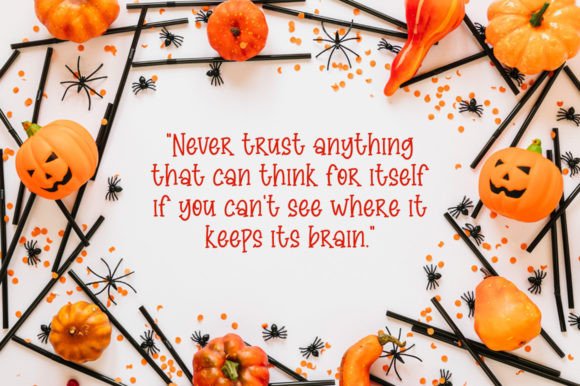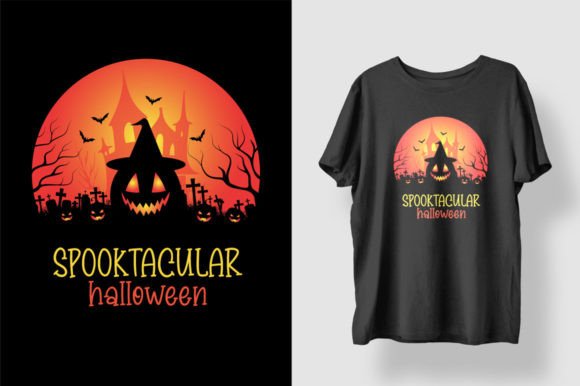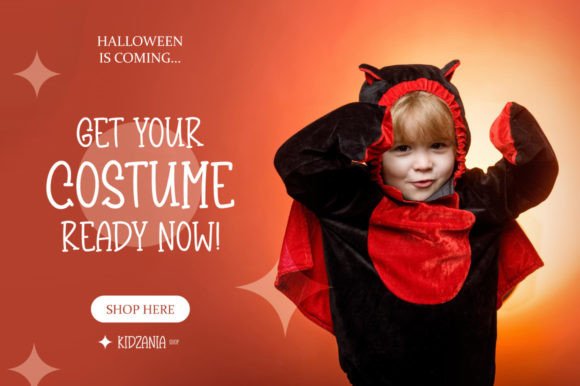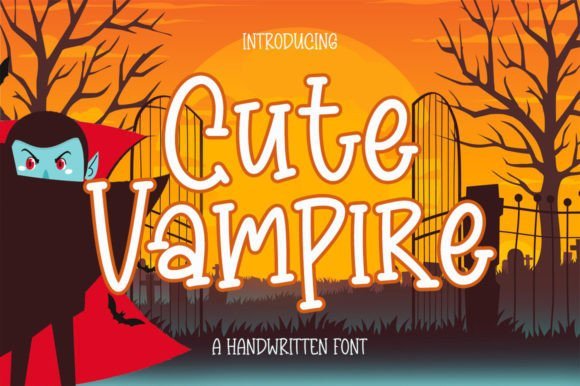
Introduction to Cute Vampire Font
Cute Vampire is a delicate and simple-lettered serif font, perfect for all the chalkboard quotes and teaching materials you wish to create.
Its authentic look will add a personal and realistic feel to your designs .
Cute Vampire Font offers exceptional quality and versatility, making it a valuable addition to your design toolkit. Whether you’re creating for personal projects or commercial use, Cute Vampire Font delivers professional results.